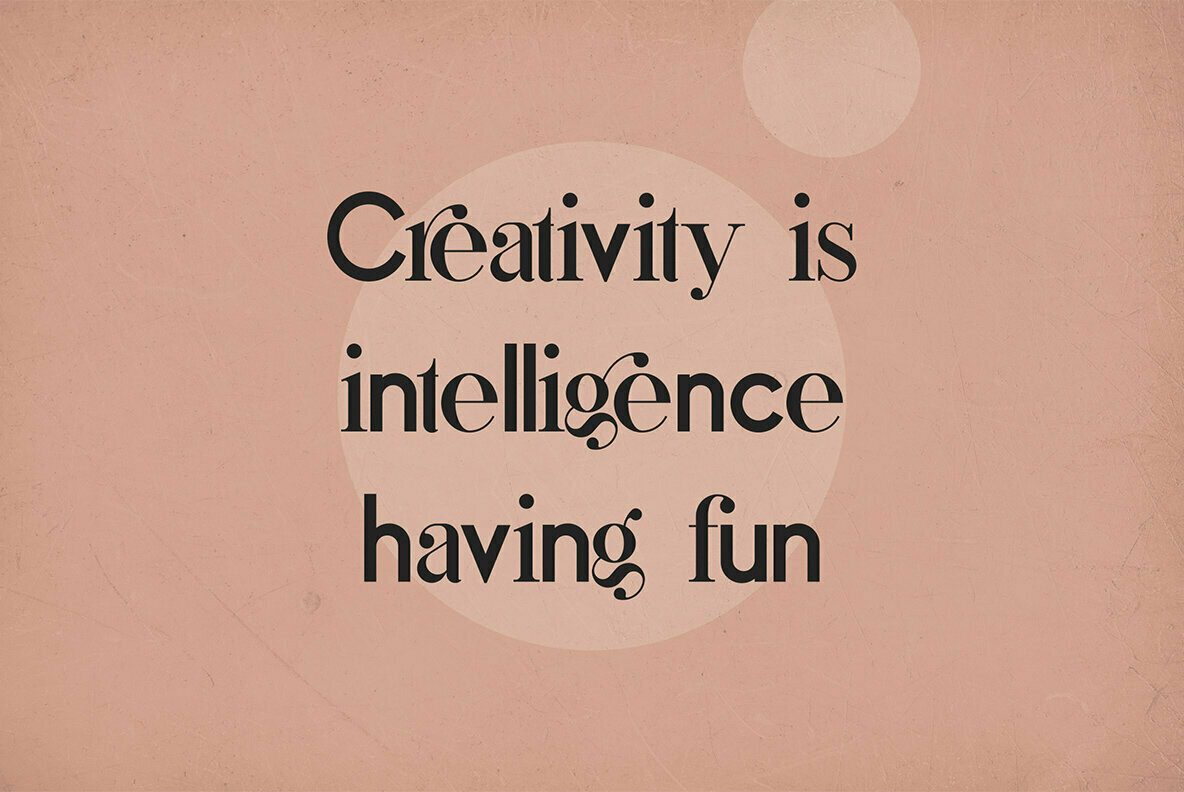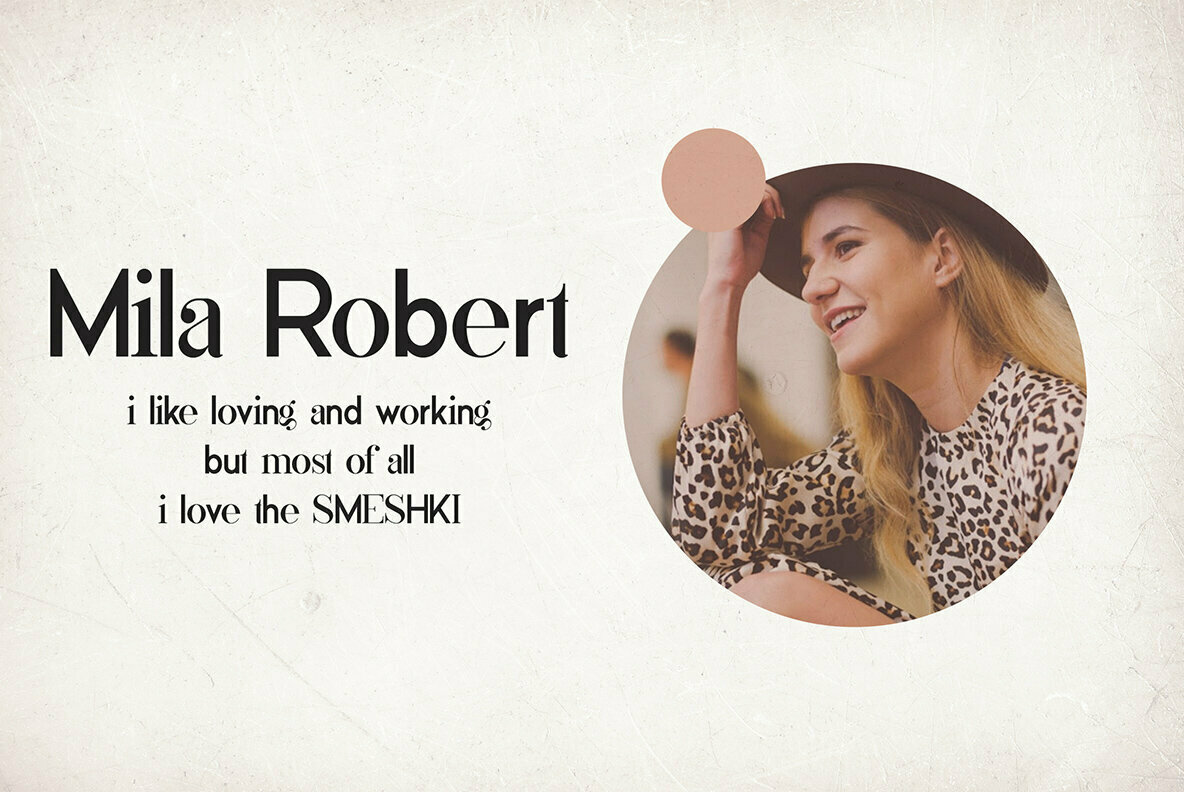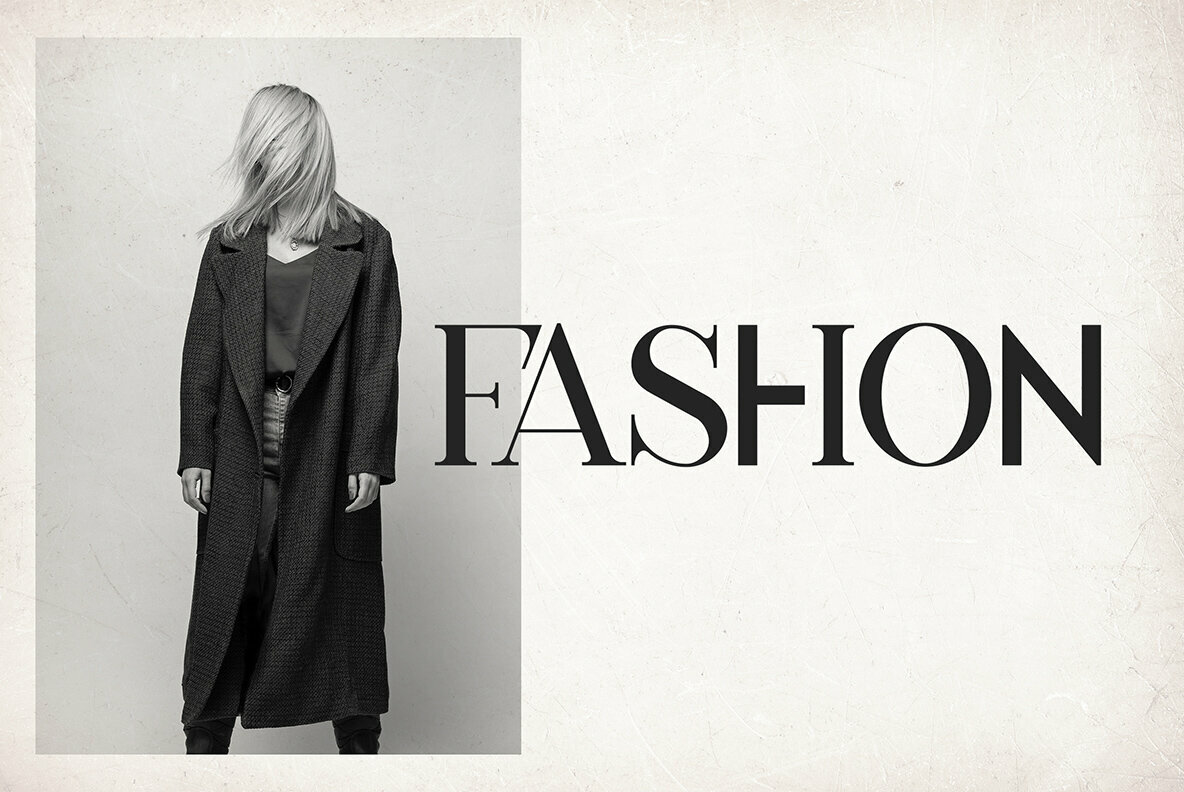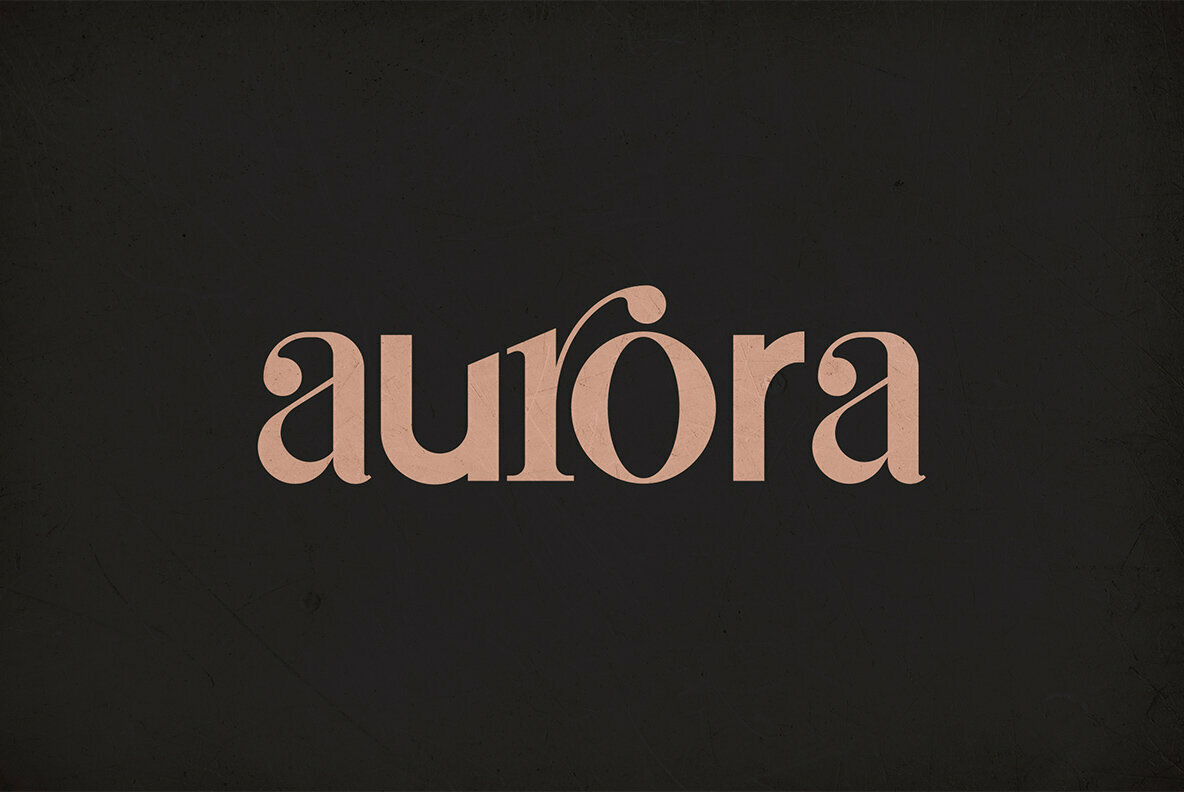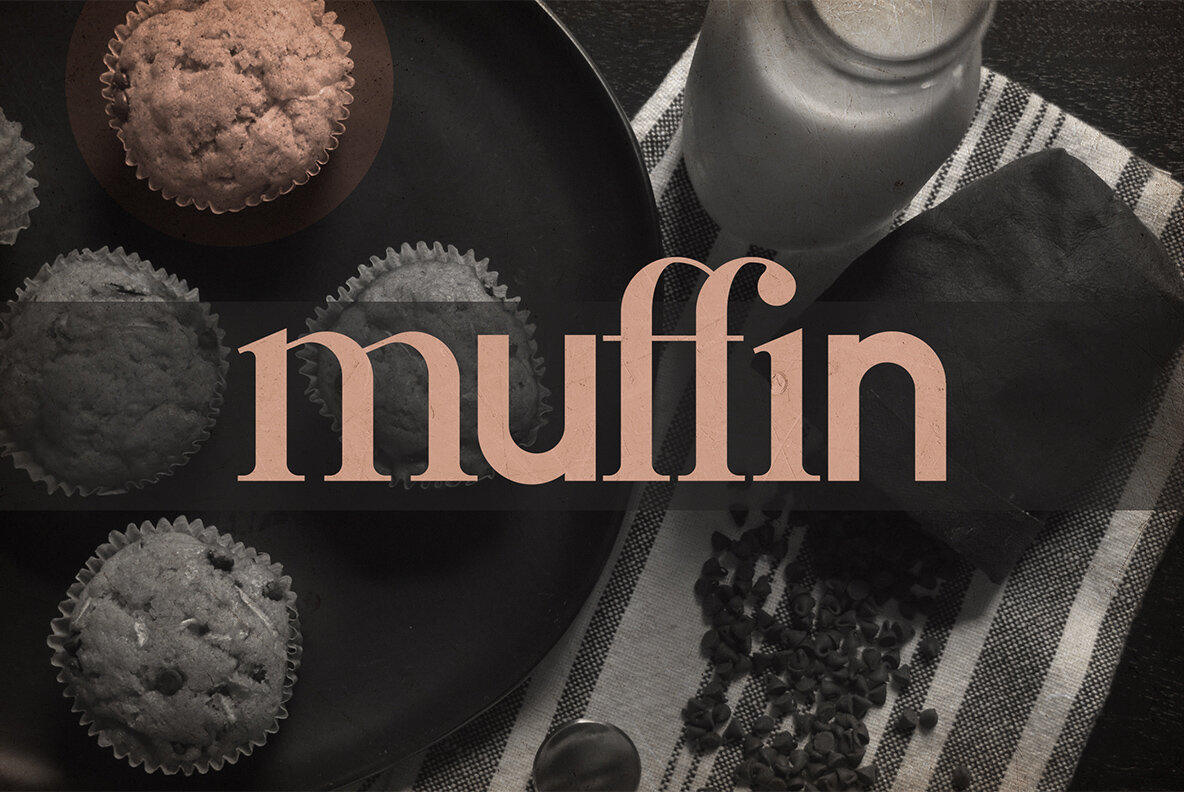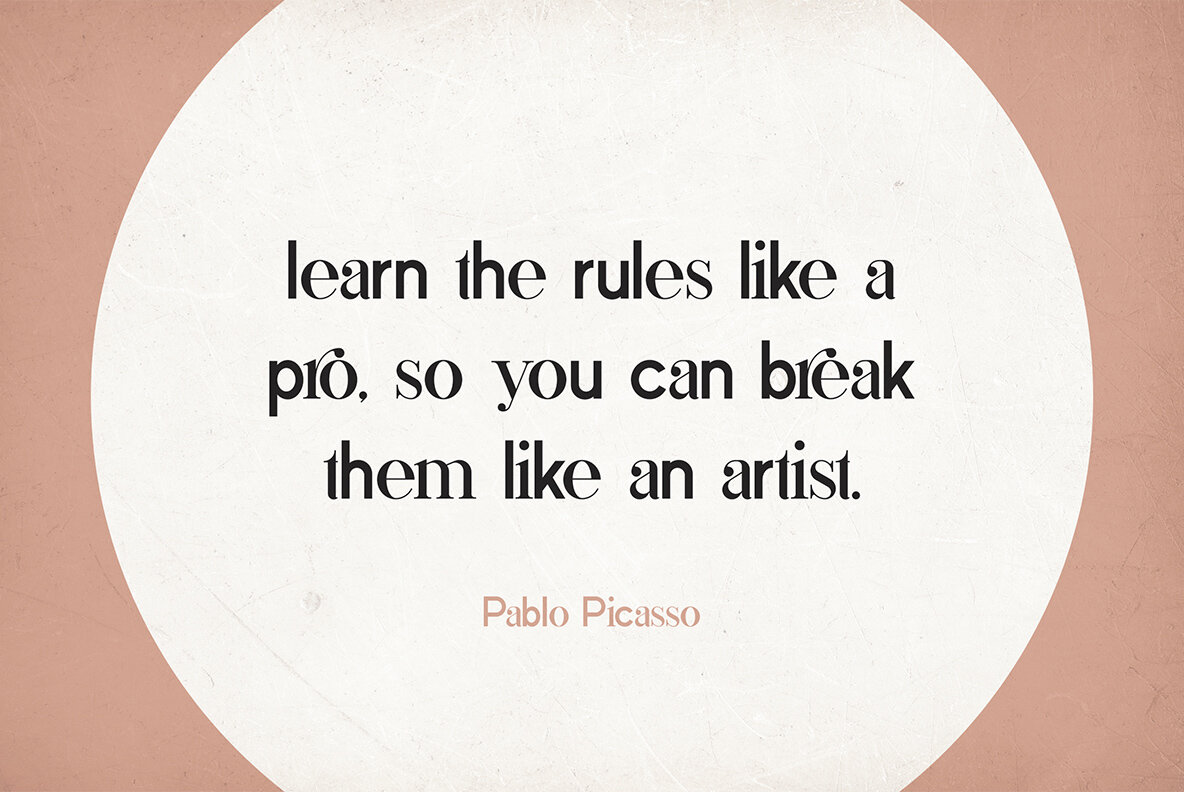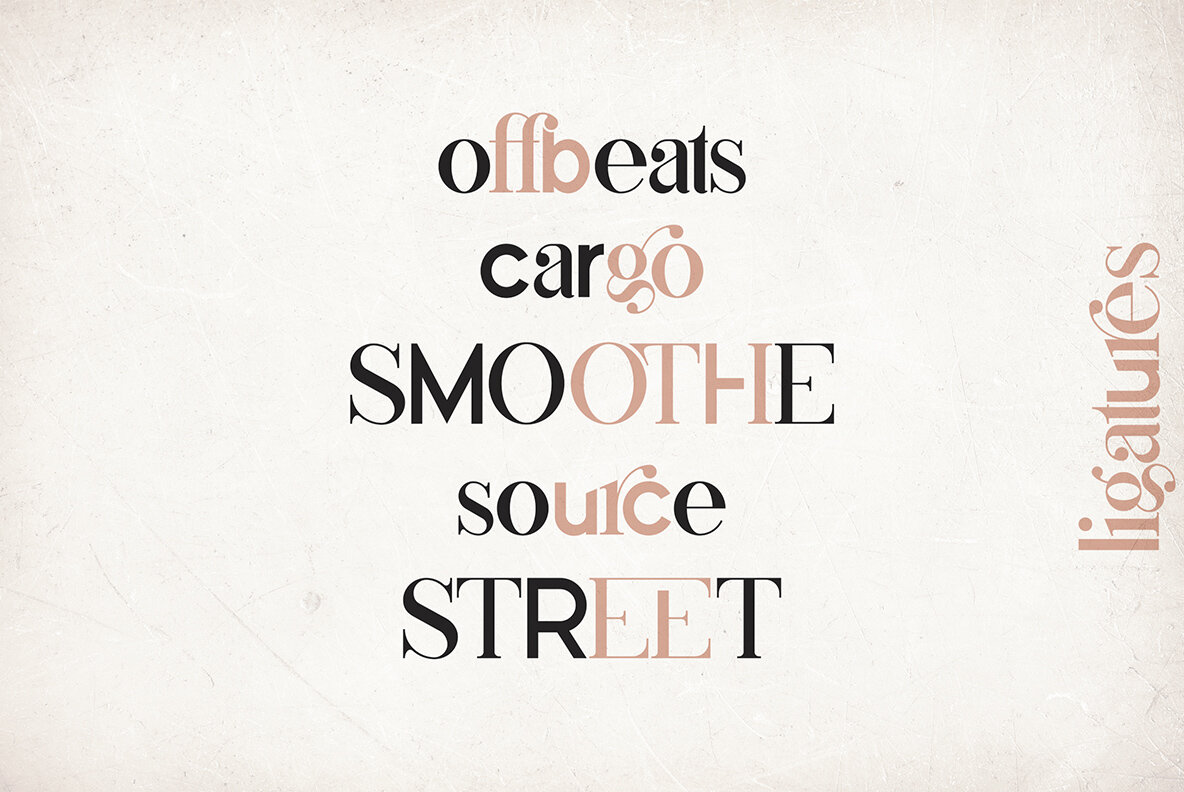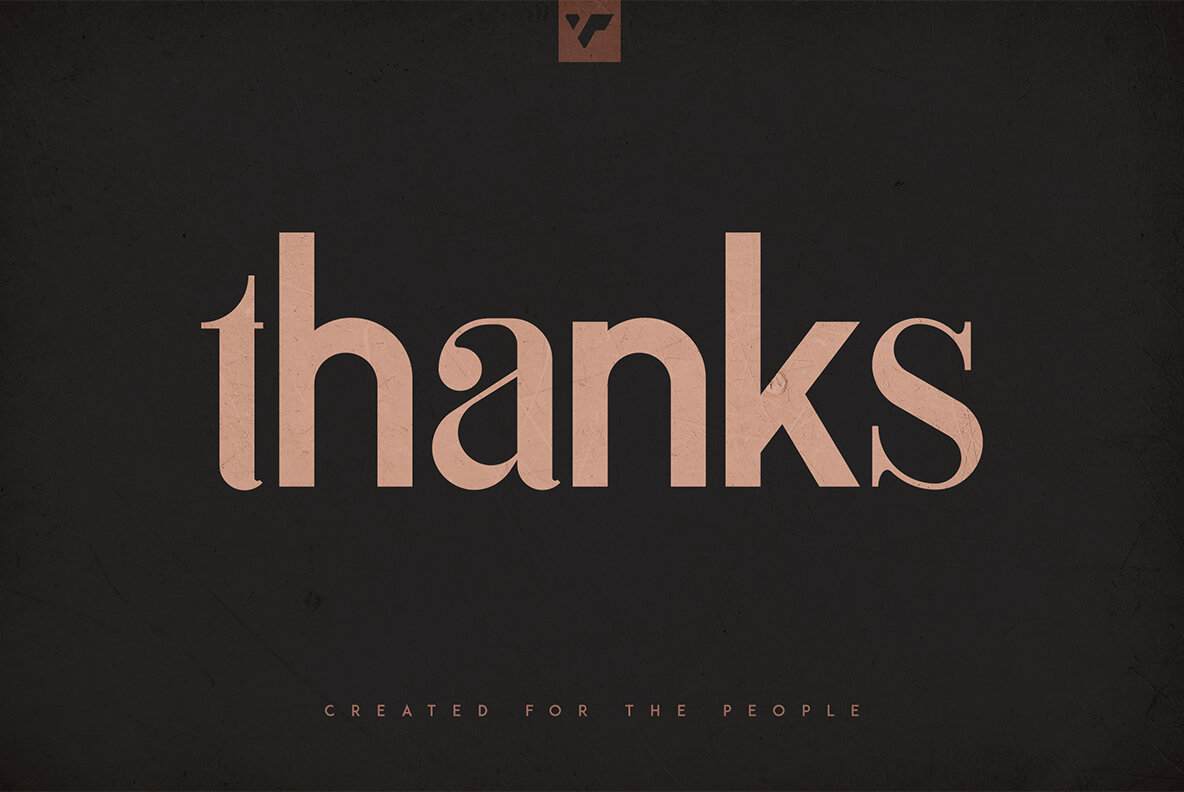
Mila Font
Mila VP
Mila effortlessly marries the worlds of sans serif and serif typography, offering a robust toolkit for any designer's arsenal. Its unique fusion grants it a rare adaptability, showcasing a blend of modern flair and traditional elegance. Loaded with an array of ligature glyphs and multilingual support, Mila proves indispensable for projects ranging from intricate branding endeavors to understated magazine headers. An asset in both large displays and small text compositions, Mila caters to a variety of design needs. Its application extends seamlessly to home-ware designs and product packaging, or as an elegant text overlay on background images, ensuring distinct visual prominence.Mila: A Versatile Super Serif Font